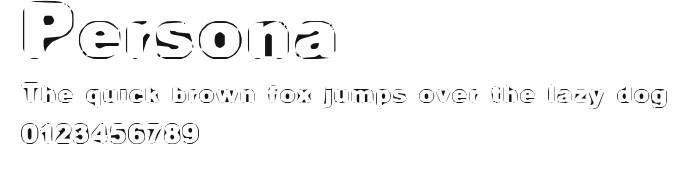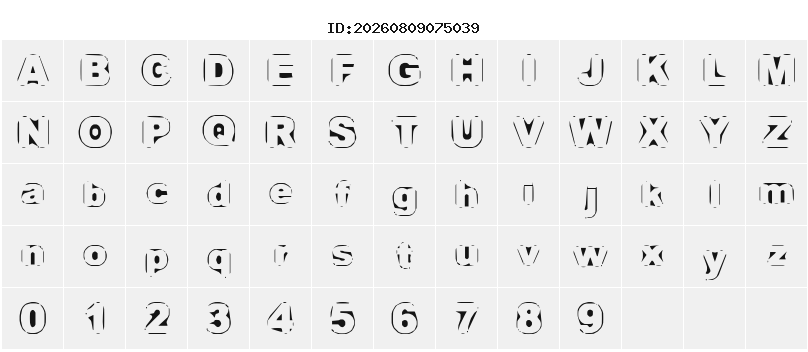
• Font Name: Persona
• Full Font Name: Persona
About Persona.ttf
Persona.ttf is a modern, elegant sans-serif font designed for ultimate readability and visual harmony. Perfect for branding, headlines, web design, and print materials.